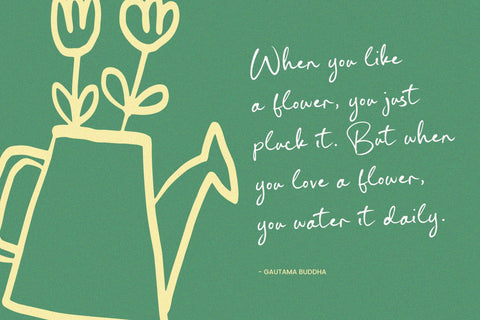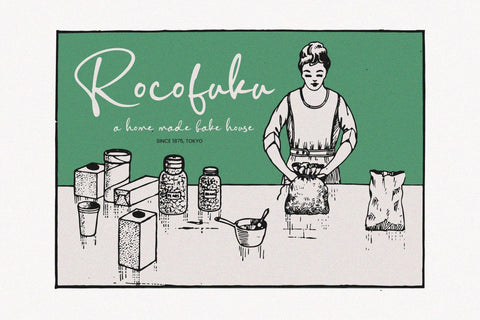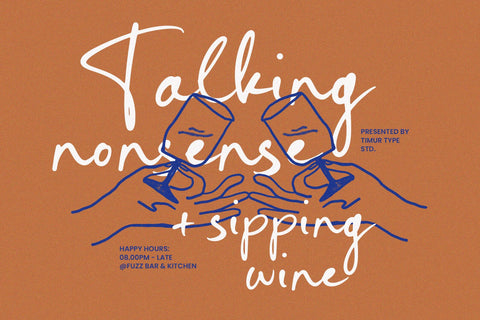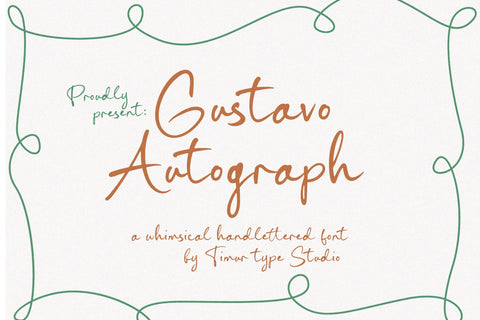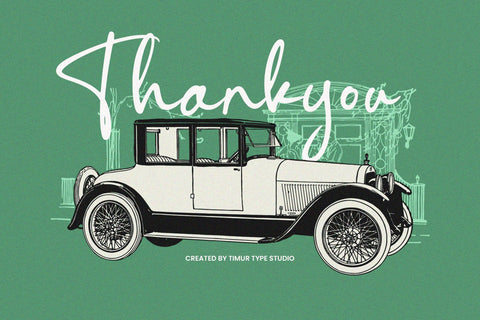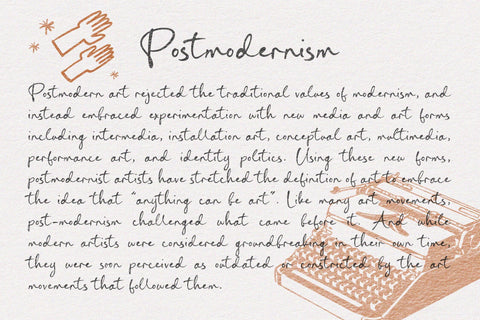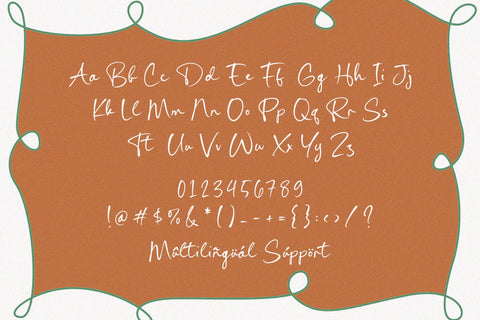
Gustavo Autograph - Whimsical Handlettered Font
Gustavo Autograph is a Whimsical Handlettered Font
This font is a whimsical and enchanting hand-lettered font that exudes personality and charm. With its playful and irregular letterforms, this font captures the essence of carefree creativity and individuality. Perfect for adding a touch of magic to greeting cards, posters, or children's book covers, Gustavo Autograph infuses your designs with a sense of wonder and whimsy. Embrace the unique and captivating character of this font to add a delightful and imaginative flair to your creative projects. Let Gustavo Autograph font inspire your designs with its quirky and charismatic charm.
Gustavo Autograph Font also supports multilingualism